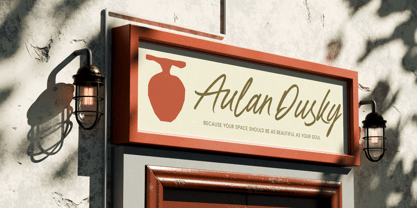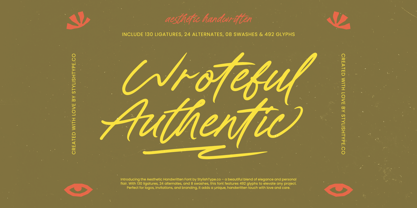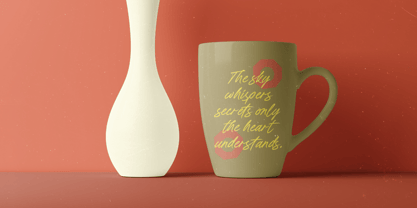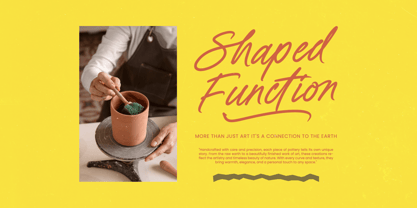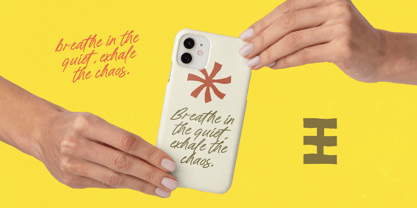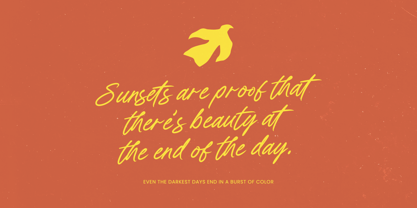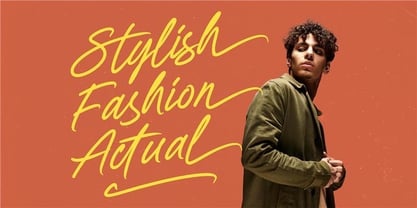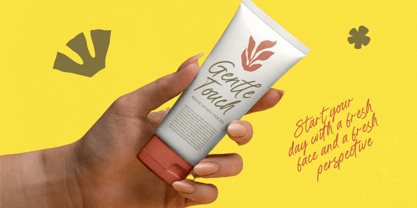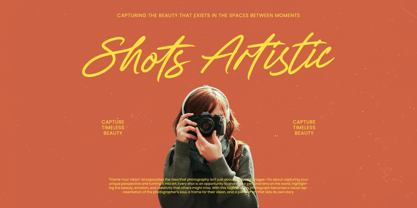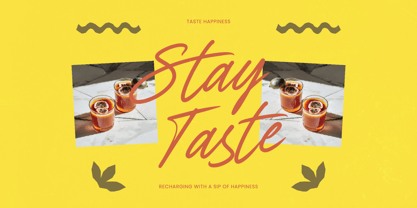
Wroteful Authentic
by Stylishtype Studio
The Wroteful Authentic Font Family was designed by Heru Utama Putra and published by Stylishtype Studio. Wroteful Authentic contains 2 styles and family package options. More about this family
Wroteful Authentic is an aesthetic handwritten script font designed to capture natural movement, effortless elegance, and genuine personality. With fluid strokes, expressive curves, and smooth letter connections, this typeface delivers a refined handwritten look that feels both modern and timeless. Perfect for logos, invitations, branding, packaging, social media graphics, and lifestyle editorials, Wroteful Authentic brings warmth and individuality to every composition. Featuring 492 glyphs, 130 ligatures, 24 alternates, and 8 swashes, it offers extensive stylistic flexibility while maintaining a cohesive and authentic character. Whether used for bold signatures or graceful headlines, Wroteful Authentic adds charm, creativity, and a handcrafted touch to both print and digital design projects.